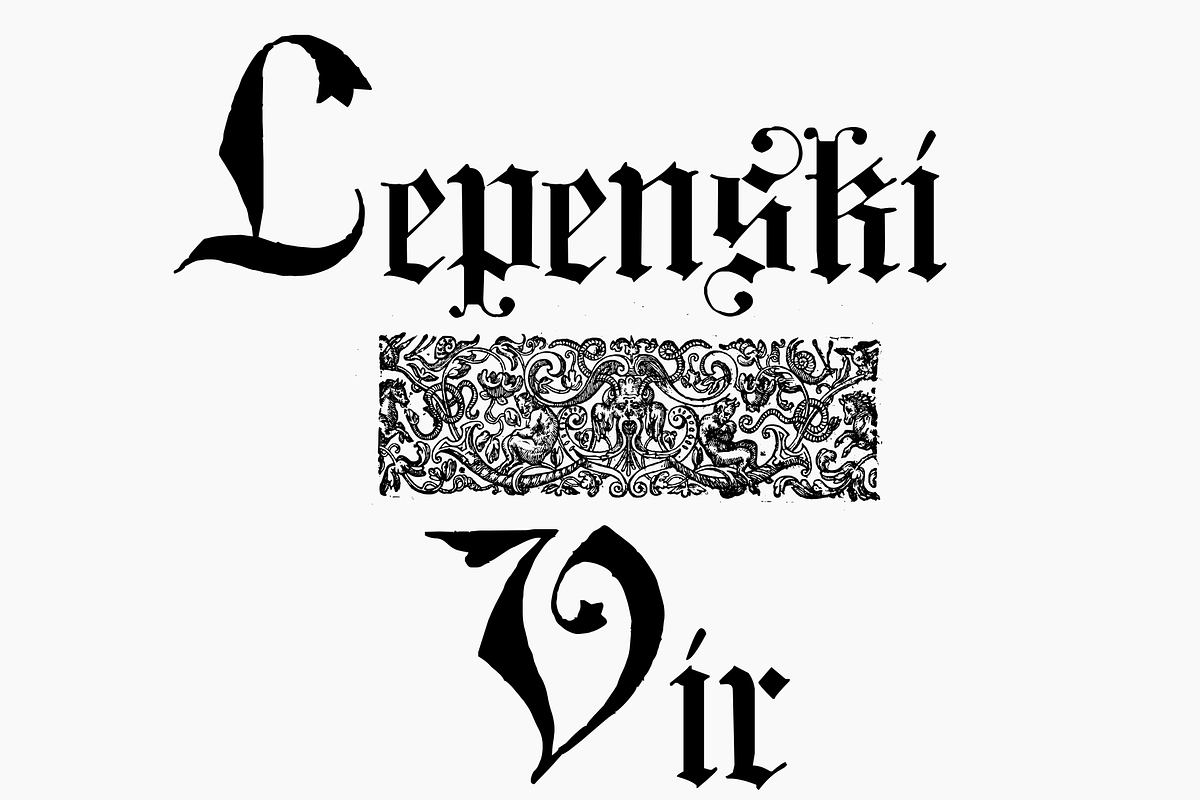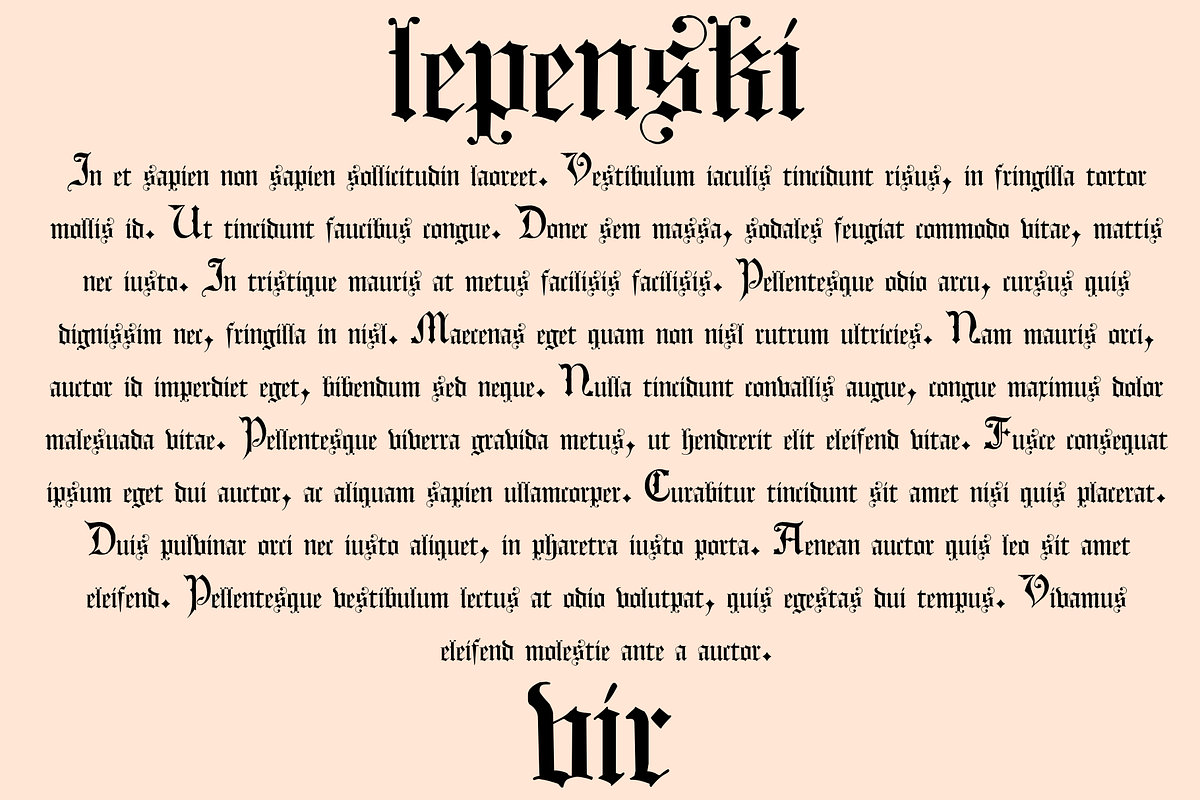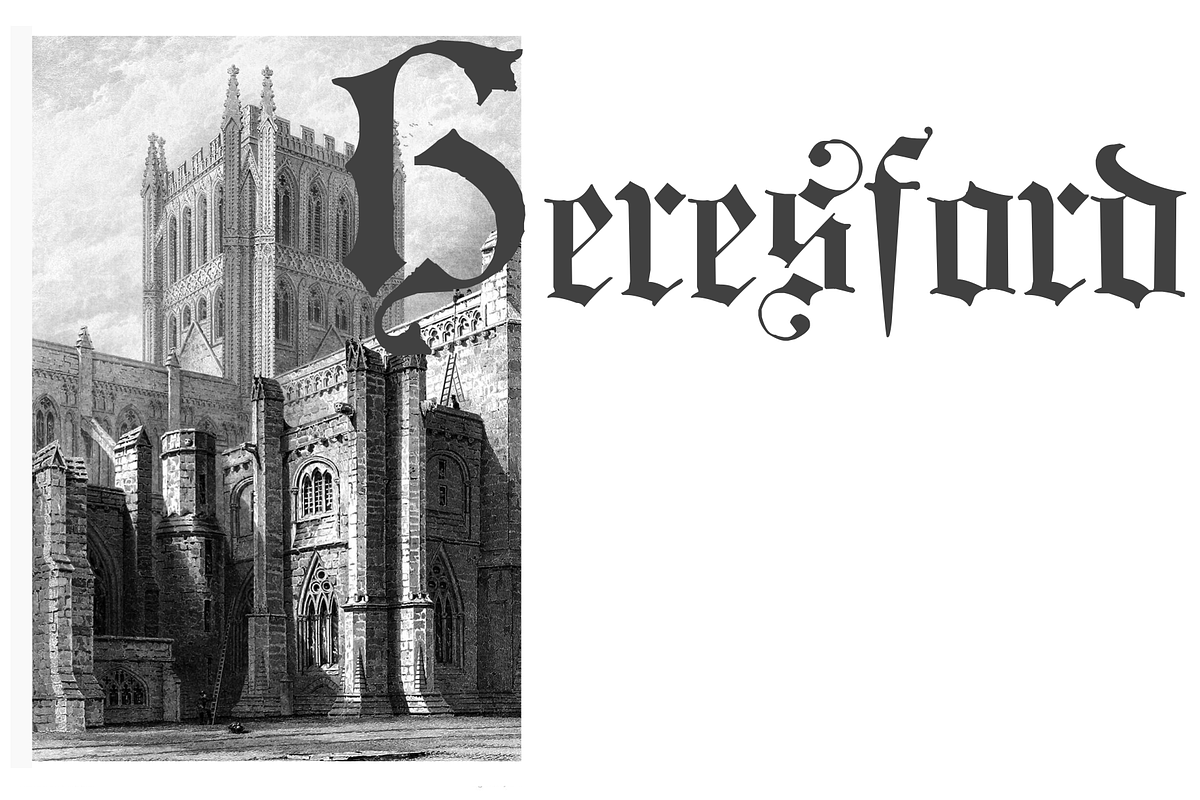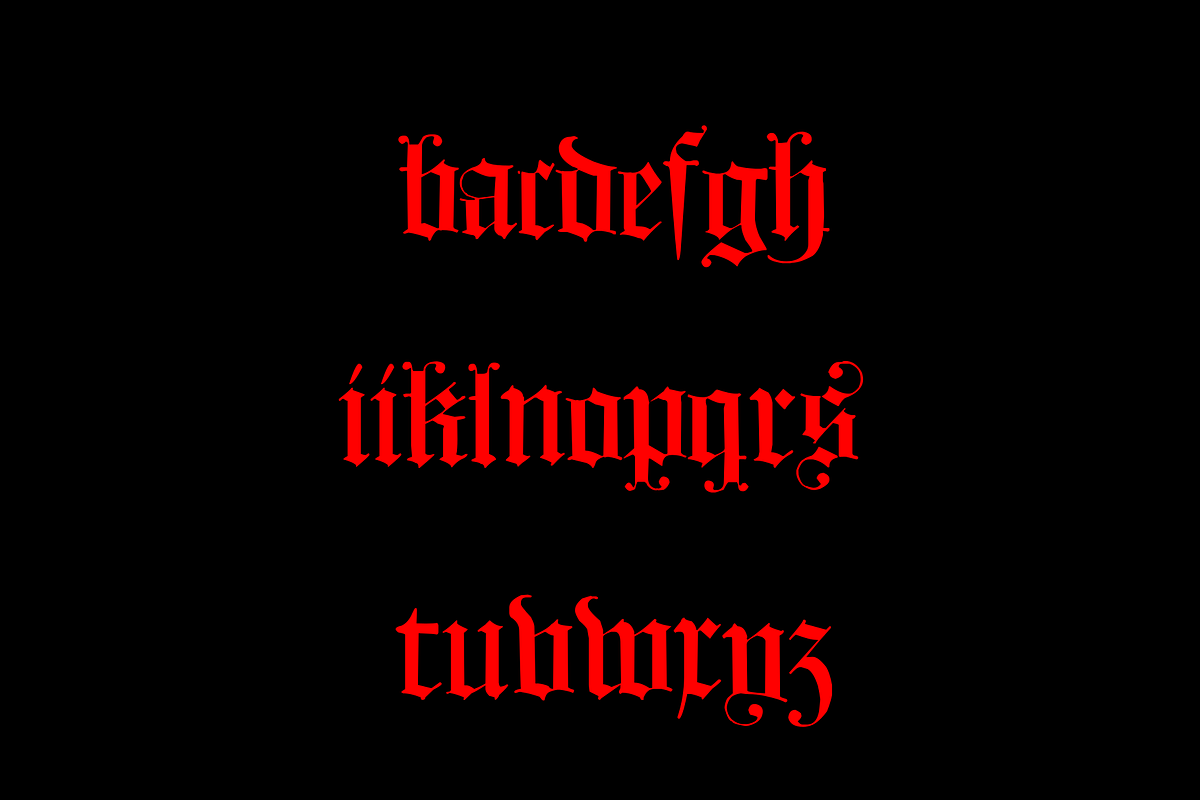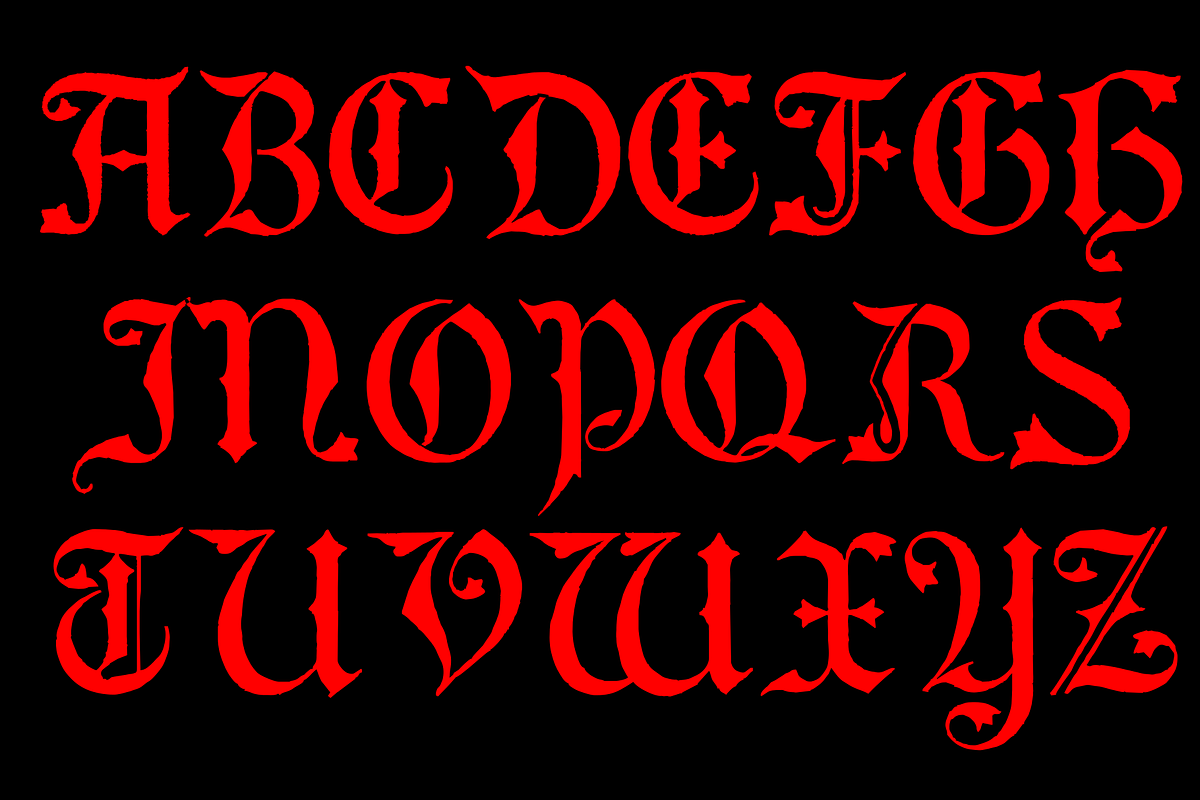
Lepenski Vir
Immerse yourself in the world of Lepenski Vir, a crisp blackletter font that seamlessly marries elegance with audacity. This typeface is not only suited for bold branding initiatives, it's a perfect fit for product packaging that needs to make a statement. Lepenski Vir brings an unexpected charm to invitations, lending a visionary touch to your special events. Craft compelling quotes on apparel like t-shirts, creating a memorable visual impact. With Lepenski Vir, labels transform into works of art and posters exude a magnetic charisma. Furthermore, logos adorned with this font stand out in the crowd, establishing a unique identity that's hard to ignore. Let Lepenski Vir guide your design journey, exploring the cusp of creativity and tradition.